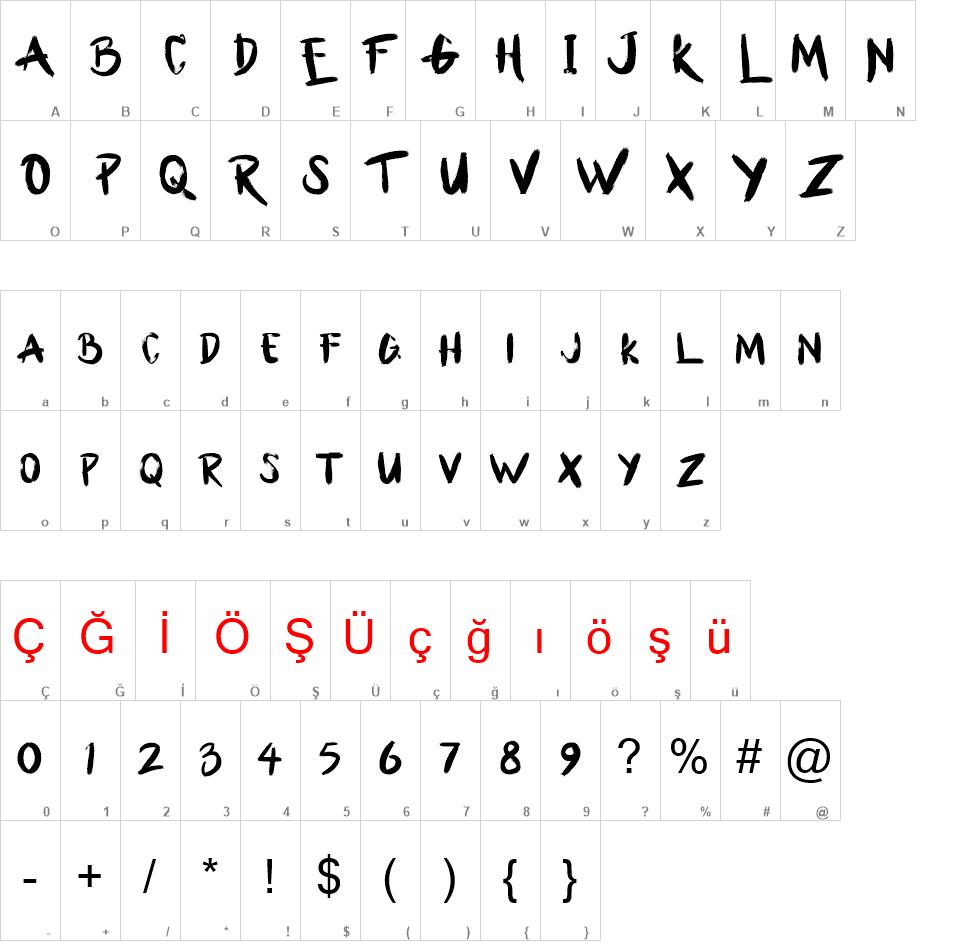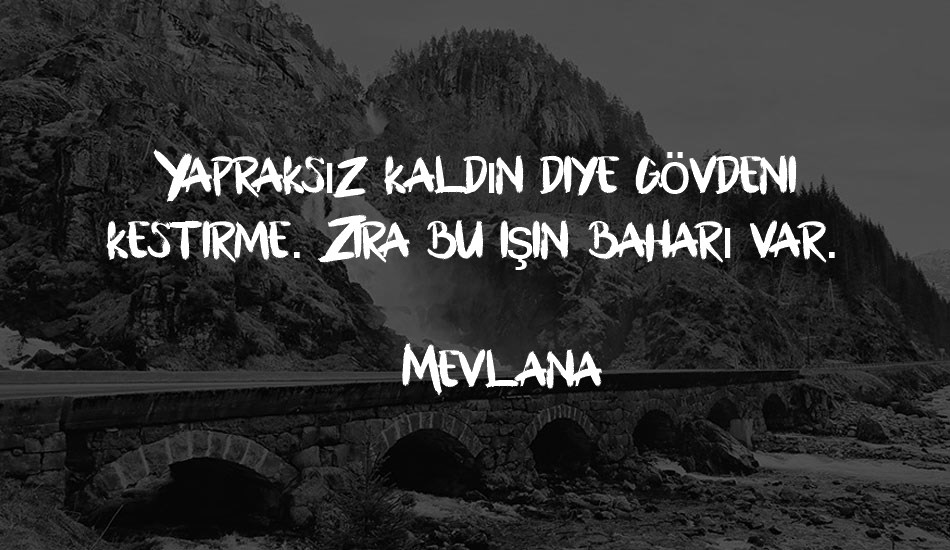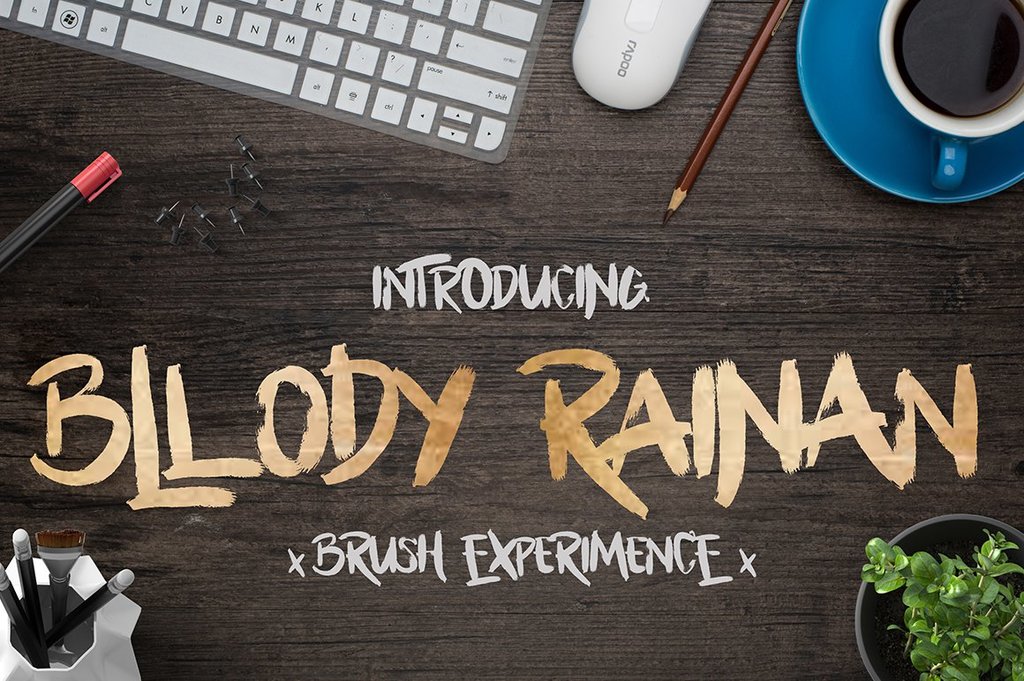
Bllody Rainan Font
Bllody Rainan font
Bllody Rainan is a brush font with 2 style. suitable to create any branding, product packaging, invitation, qoutes, t-shirt, label poster etc.
Feature
UPPERCASE
lowercase
Number & Symbol
International Glyps
Alternative UPPERCASE 1
Ligatures